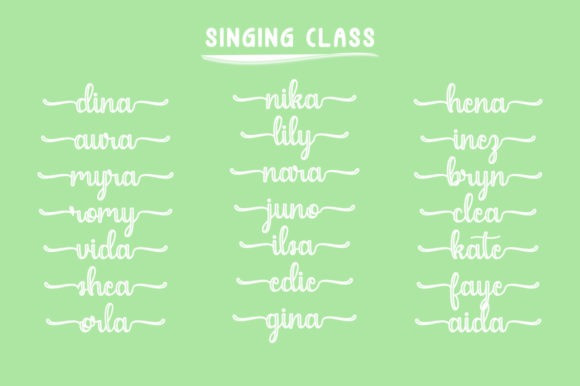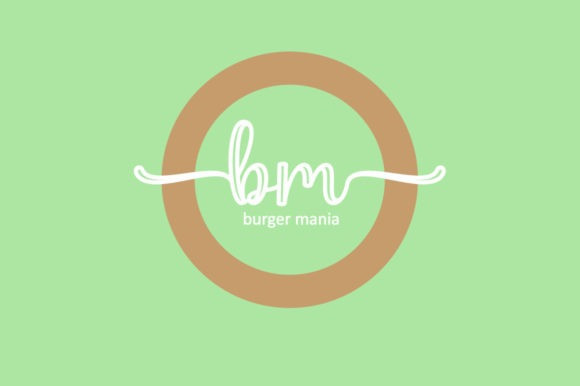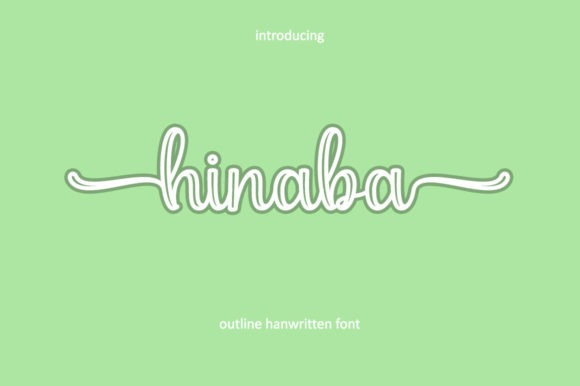
Hinaba Script Font
Hinaba Script Font is a beautiful handwritten font. This font is suitable for designs such as logos, quotes, t-shirt screen printing, brands, valentines, wedding invitations and others.